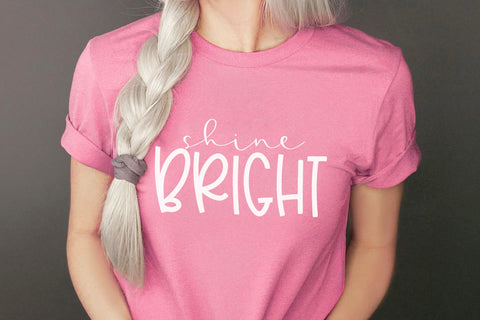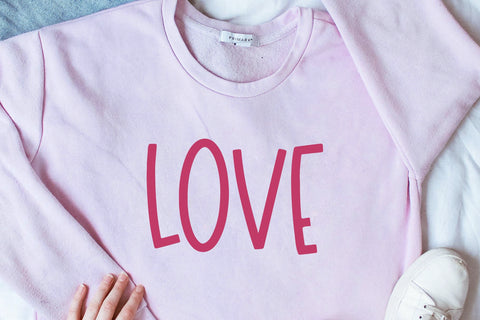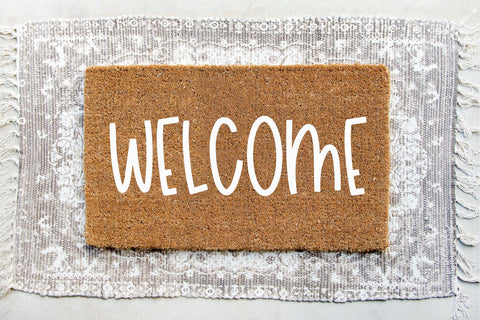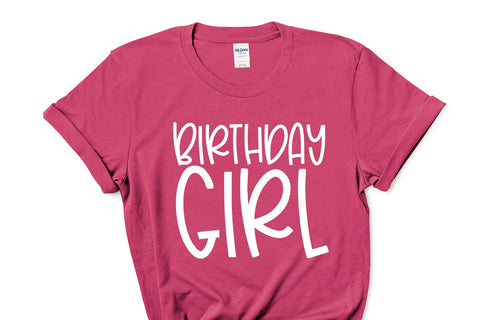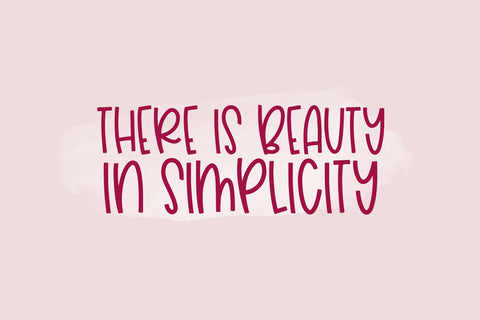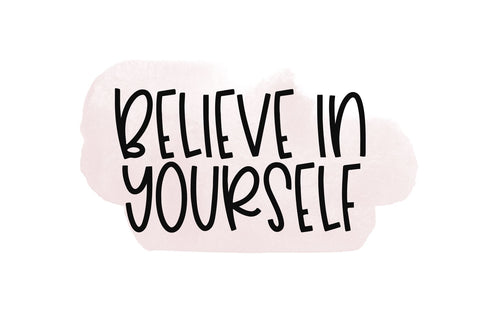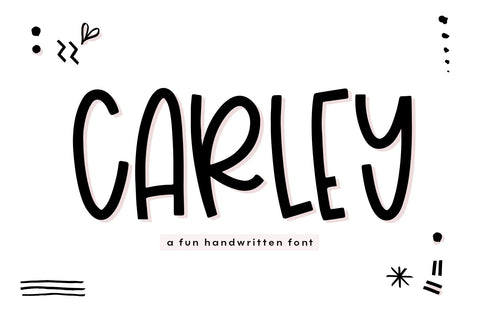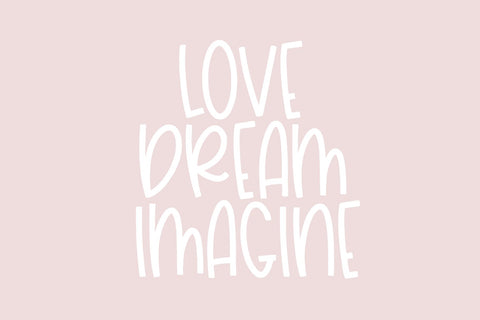
Carley - Quirky Handwritten Font
Carley is a tall and quirky handwritten font
This is an all caps font.
This font is perfect for quotes, shirt designs, websites, branding, children's designs, svg designs, blogs, logos, invitations and more!
Most accent characters included.